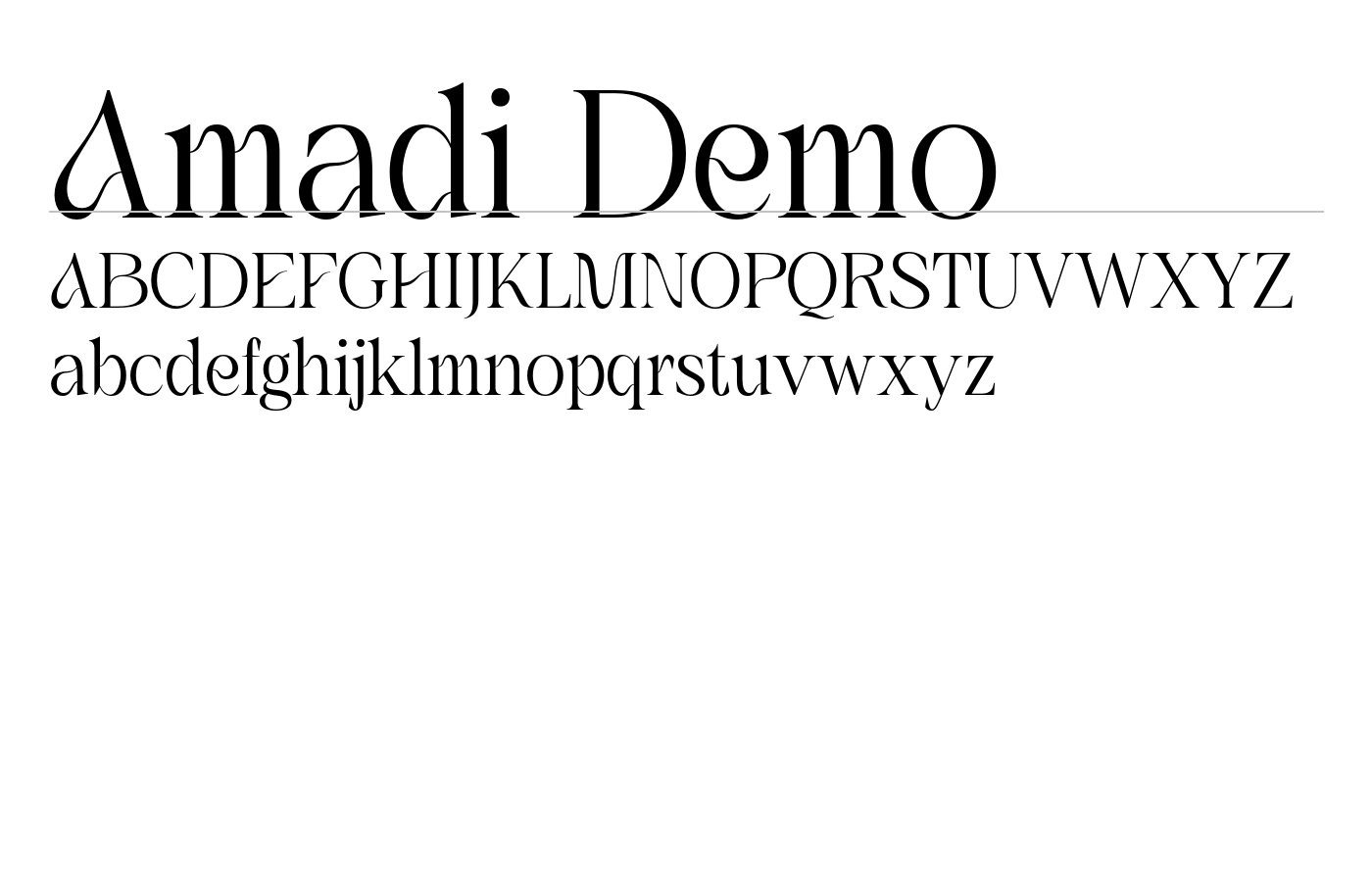
Amadi Demo is a refined serif font with elegant, thin strokes and high contrast between thick and thin lines, showcasing a classic Didone style. Its uniquely shaped letters, such as the stylized uppercase A and the flowing curves in characters like g and Q, give it a sophisticated and artistic flair. This font works beautifully for high-end branding, editorial headlines, and luxury packaging where a touch of elegance and timelessness is desired.
Amadi Demo Font
About Amadi Demo Font